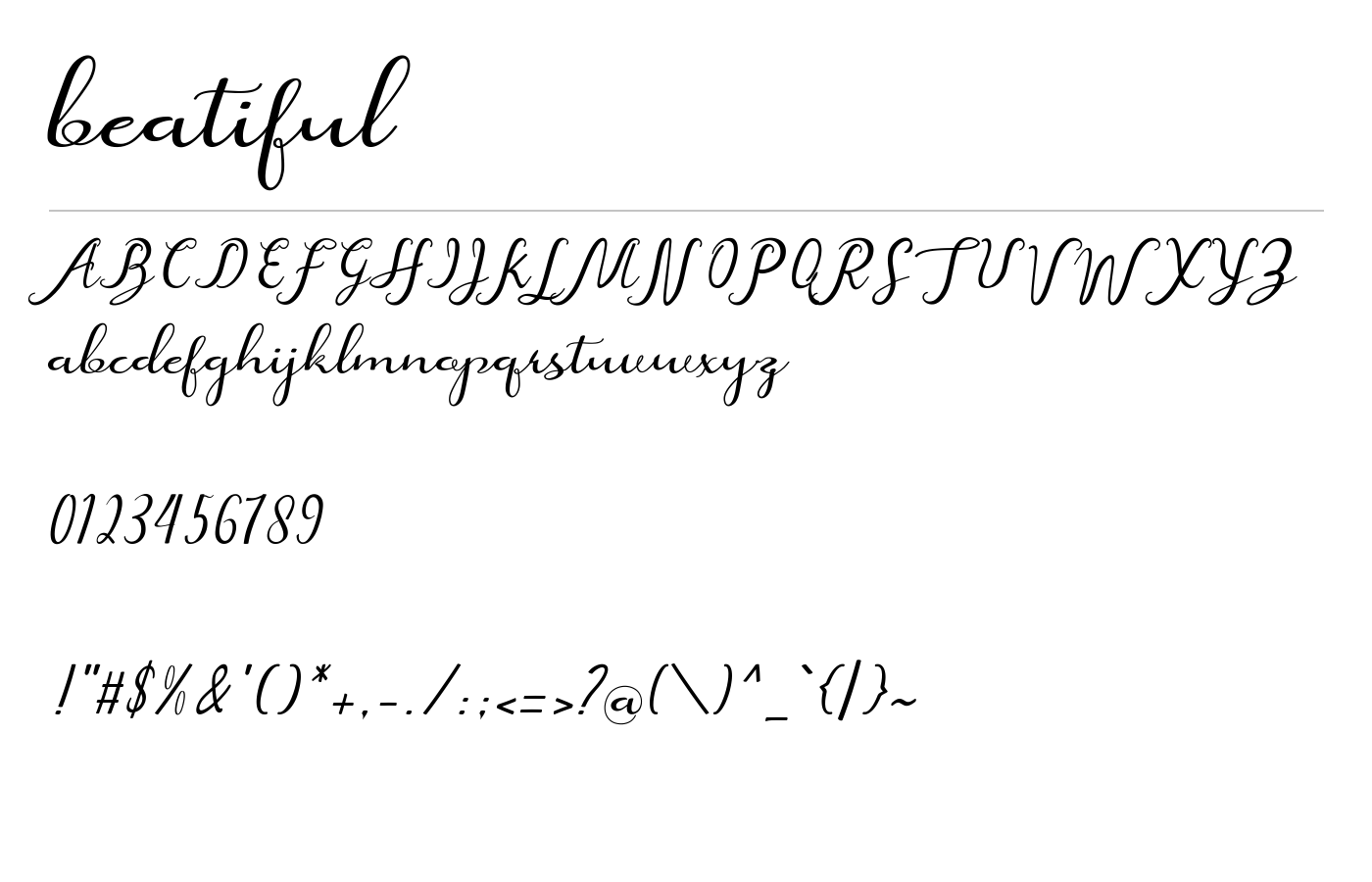
Beatiful Font is an elegant, flowing script typeface that features delicate, thin strokes with a gentle contrast, and finely crafted letterforms that evoke a handwritten feel. Its graceful style and refined curves make it perfect for invitations, branding, and luxury designs where a sophisticated and personal touch is desired. This font shines in projects that need a stylish, feminine, and artistic look.
beatiful Font